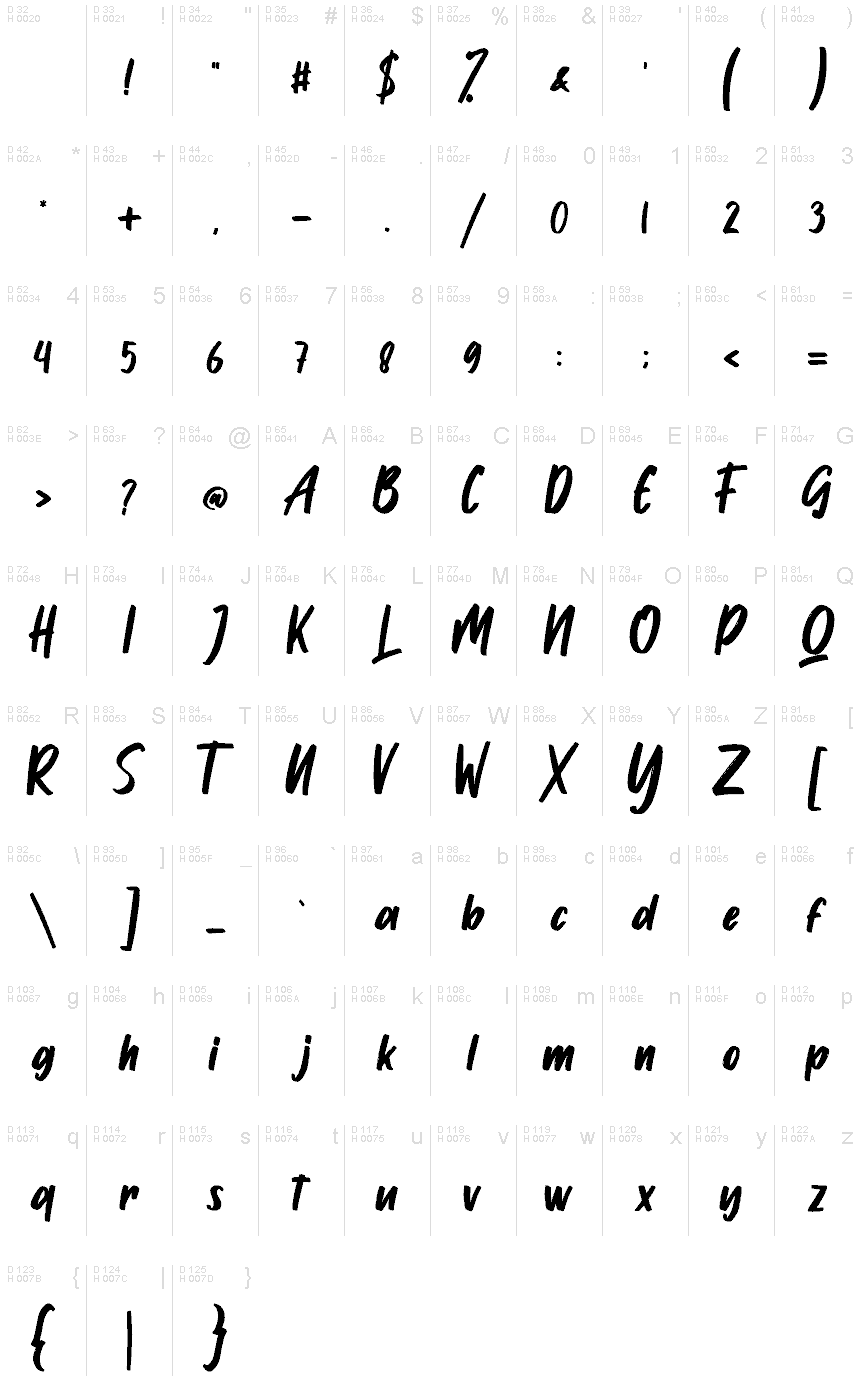
Runyone
Runyone font by Skiiller Studio is a modern brush font exuding an expressive and energetic vibe. With its condensed, handwritten strokes, Runyone embraces a free-spirited style within each character and form maintaining the vibrancy of a handwritten piece. A casual aesthetic is obtained within every sentence written in this free brush font.
Runyone is perfectly suitable for packaging designs, branding projects, packages, book covers and magazine titles. With its digital applications that include online platforms like social media headers or invitation campaign ads and printed cards including wedding invitations or business cards for your clients or yourself!